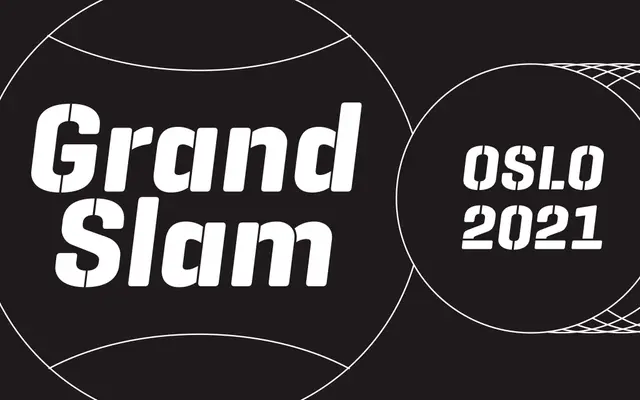
Geogrotesque Stencil
A stencil extension of the Geogrotesque family offering three cut widths to accommodate different print scales and material rigidities across seven weights.
Extending the Geogrotesque family into stencil territory, this variant addresses practical production problems by offering three versions of the cut — A, B and C — which allow designers to select the bridge width appropriate to the print size or material rigidity in use. The full family spans 42 styles across seven weights from Thin to Bold, each with a matching italic and all three cut variants. The result is a stencil system with real functional depth rather than a single decorative cut.
A stencil variant of the Geogrotesque geometric grotesque family, designed explicitly for display use with three cut widths to address practical printing constraints inherent to stencil typefaces.